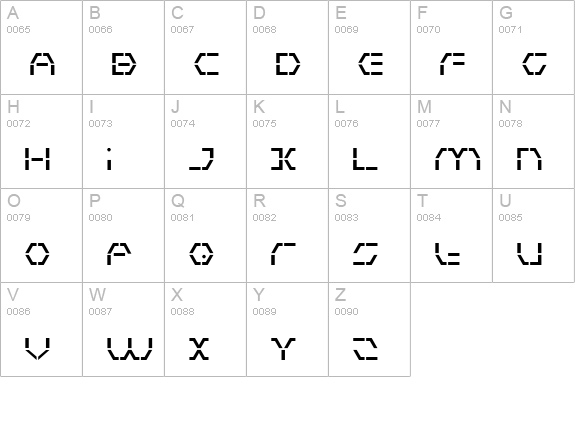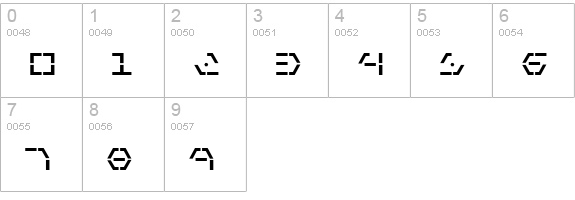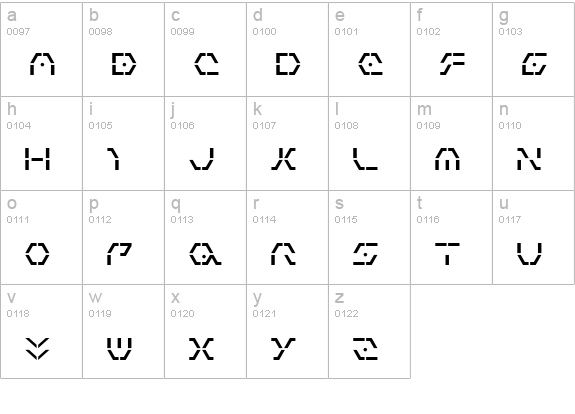
Introducing Zeta Sentry, a sleek and modern typeface that exudes sophistication and style. With its clean lines and sharp edges, Zeta Sentry is perfect for a variety of design projects, from branding to editorial layouts. This versatile font is sure to make a bold statement and elevate your designs to the next level. And the best part? Zeta Sentry is completely FREE to download at FontsMarket.com. Yes, you read that right – this high-quality font can be yours at no cost, making it an invaluable addition to your font library. Don't miss out on this opportunity to enhance your creative projects with Zeta Sentry. Download it now and start crafting beautiful designs today!